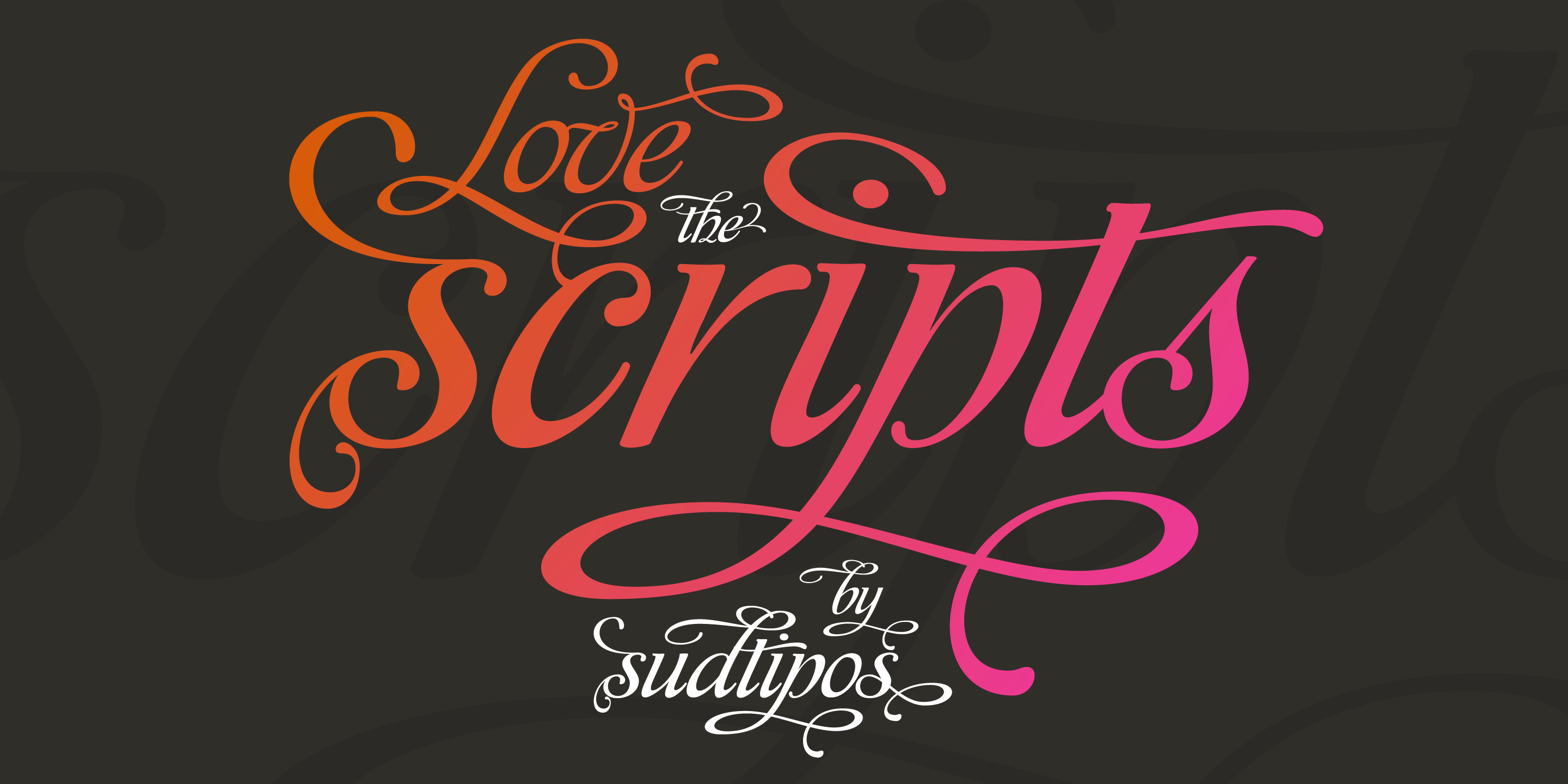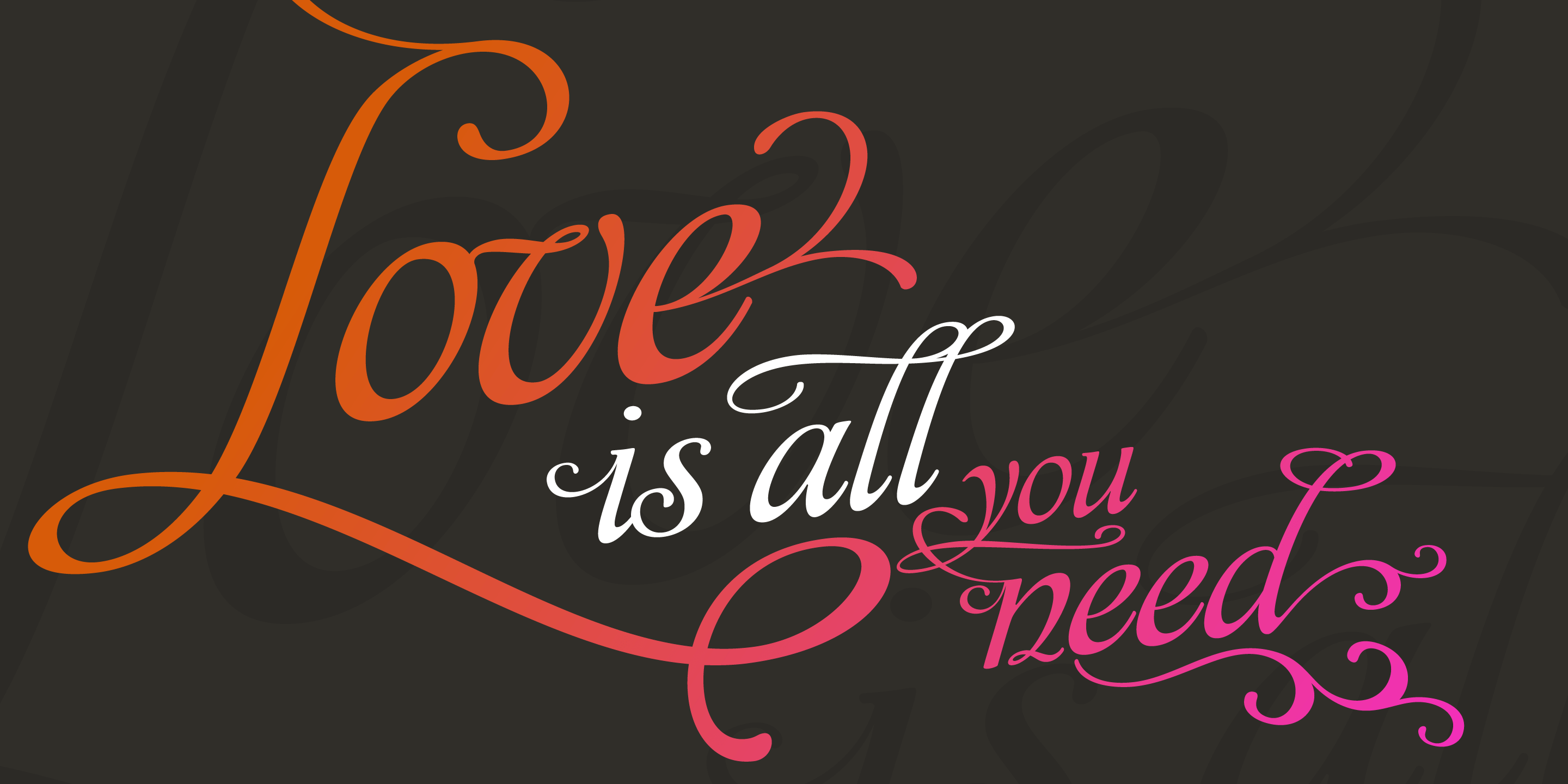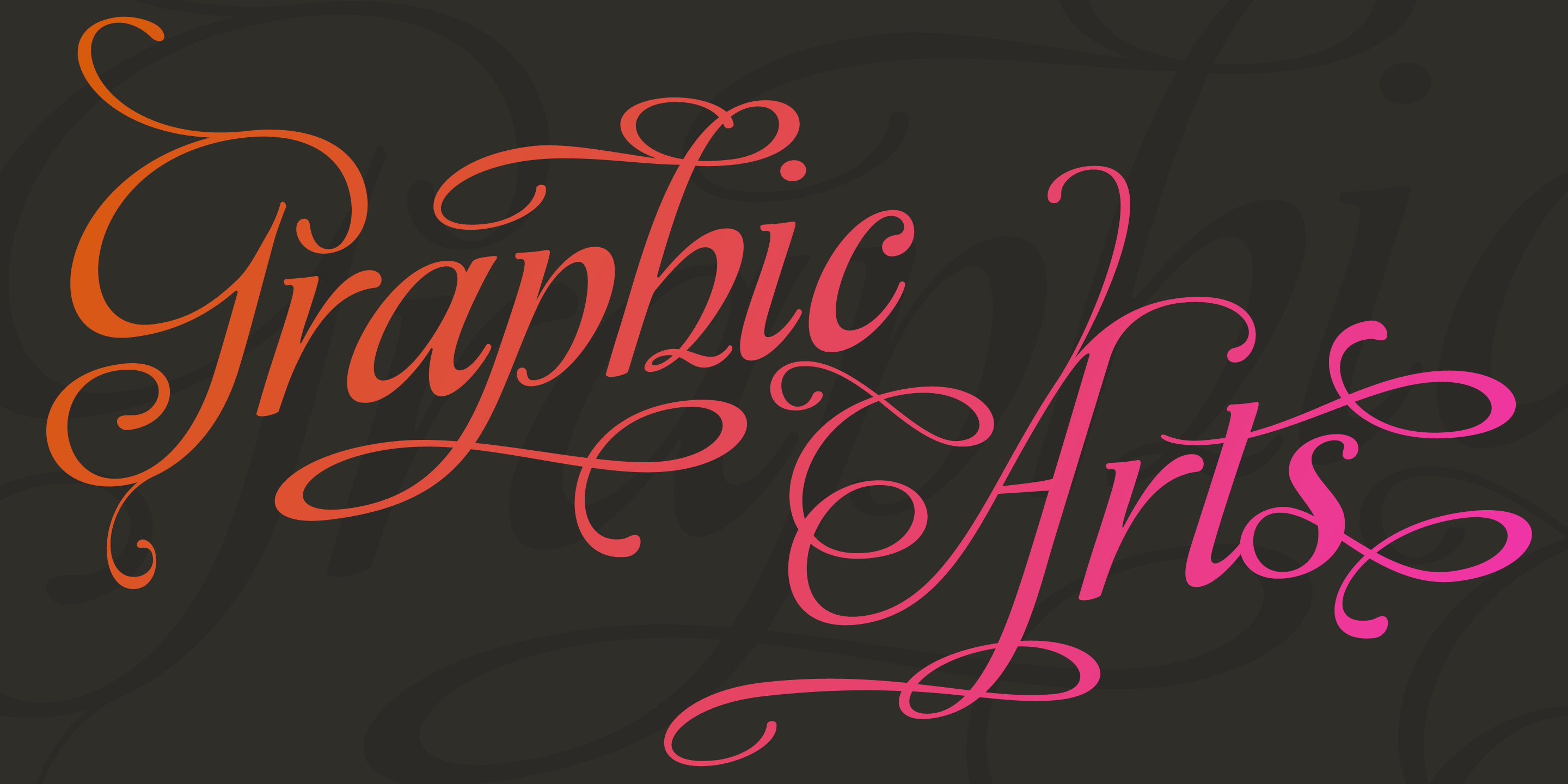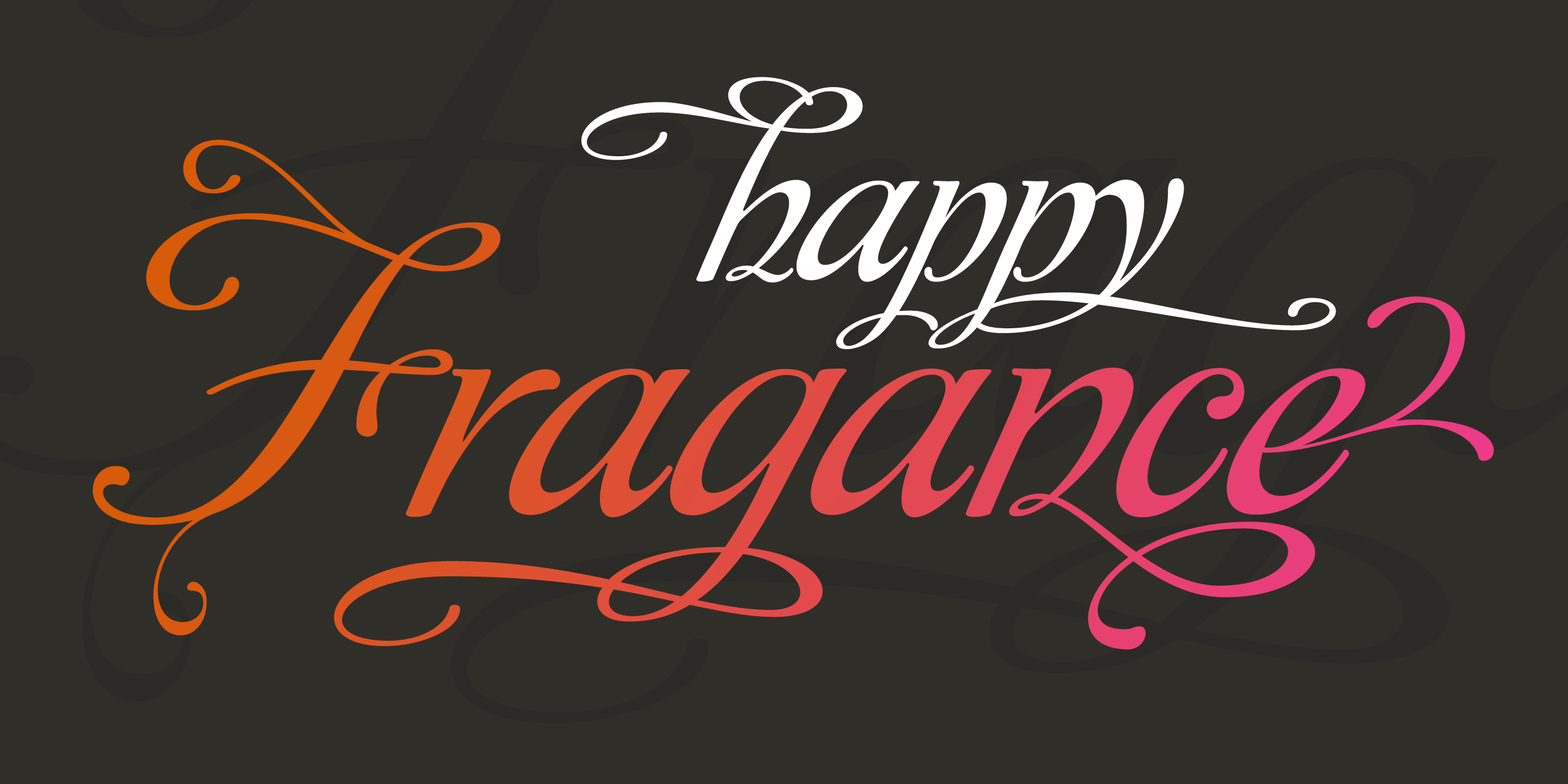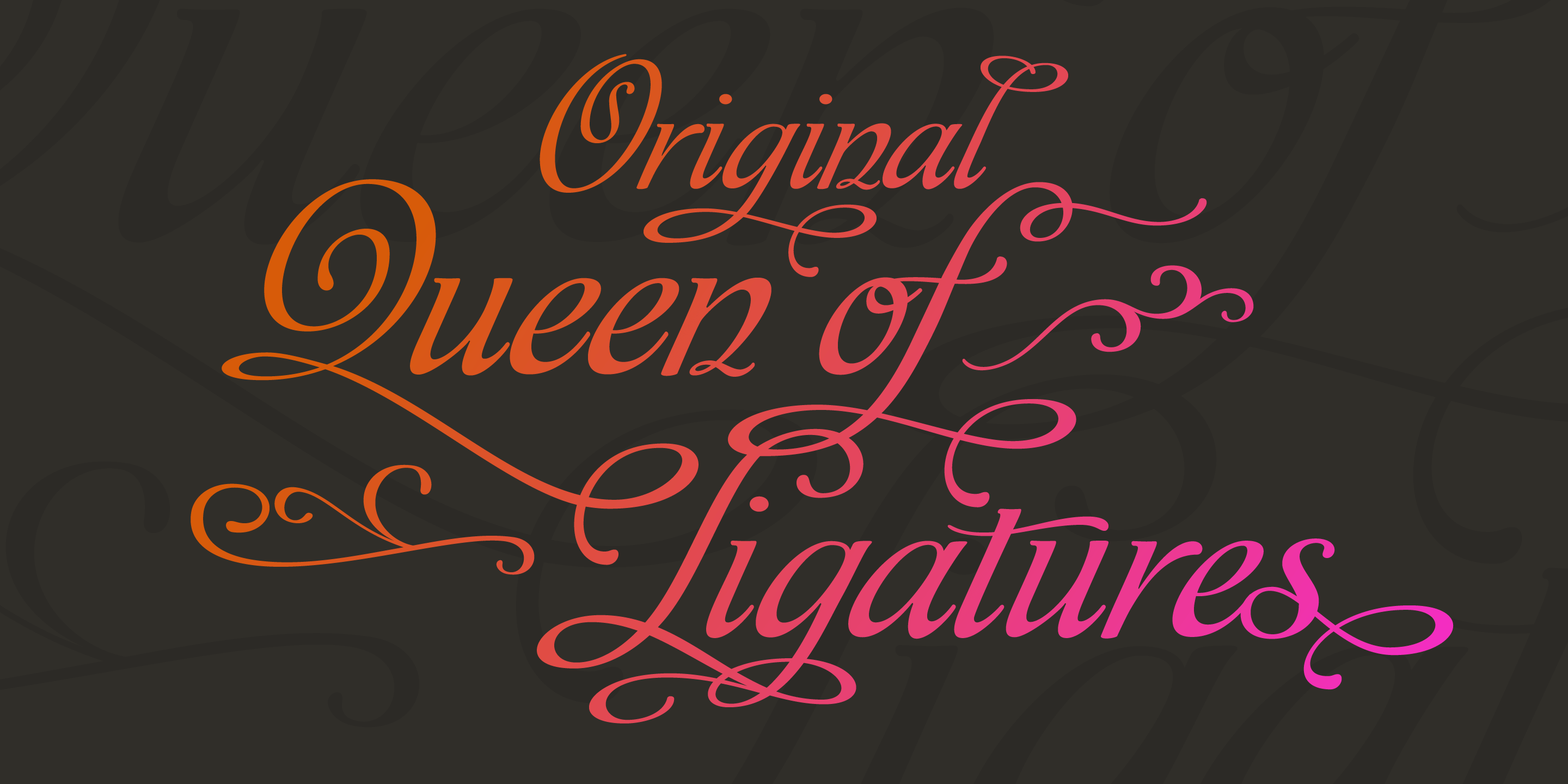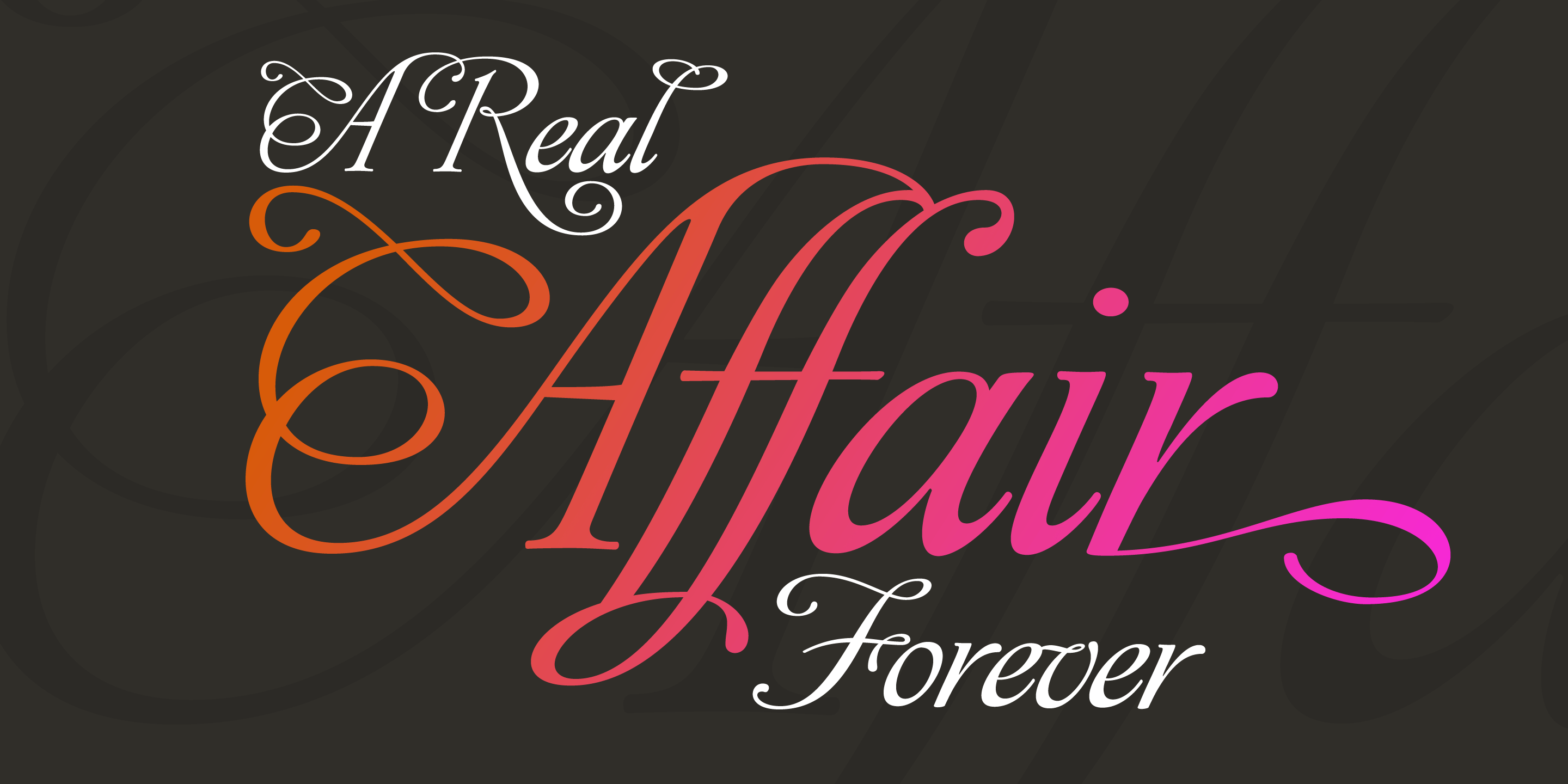
Affair
Font Family by Sudtipos
Buy NowType designers are crazy people. Not crazy in the sense that they think we are Napoleon, but in the sense that the sky can be falling, wars tearing the world apart, disasters splitting the very ground we walk on, plagues circling continents to pick victims randomly, yet we will still perform our ever optimistic task of making some little spot of the world more appealing to the human eye. We ought to be proud of ourselves, I believe. Optimism is hard to come by these days. Regardless of our own personal reasons for doing what we do, the very thing we do is in itself an act of optimism and belief in the inherent beauty that exists within humanity.
As recently as ten years ago, I wouldn't have been able to choose the amazing obscure profession I now have, wouldn't have been able to be humbled by the history that falls into my hands and slides in front of my eyes every day, wouldn't have been able to live and work across previously impenetrable cultural lines as I do now, and wouldn't have been able to raise my glass of Malbeck wine to toast every type designer who was before me, is with me, and will be after me. As recently as ten years ago, I wouldn't have been able to mean these words as I wrote them: It's a small world.
Yes, it is a small world, and a wonderfully complex one too. With so much information drowning our senses by the minute, it has become difficult to find clear meaning in almost anything. Something throughout the day is bound to make us feel even smaller in this small world. Most of us find comfort in a routine. Some of us find extended families. But in the end we are all Eleanor Rigbys, lonely on the inside and waiting for a miracle to come. If a miracle can make the world small, another one can perhaps give us meaning.
And sometimes a miracle happens for a split second, then gets buried until a crazy type designer finds it. I was on my honeymoon in New York City when I first stumbled upon the letters that eventually started this Affair. A simple, content tourist walking down the streets formerly unknown to me except through pop music and film references. Browsing the shops of the city that made Bob Dylan, Lou Reed, and a thousand other artists. Trying to chase away the tourist mentality, wondering what it would be like to actually live in the city of a billion tiny lights.
Tourists don't go to libraries in foreign cities. So I walked into one. Two hours later I wasn't in New York anymore. I wasn't anywhere substantial. I was the crazy type designer at the apex of insanity. La La Land, alphabet heaven, curves and twirls and loops and swashes, ribbons and bows and naked letters. I'm probably not the very first person on this planet to be seduced into starting an Affair while on his honeymoon, but it is something to tease my better half about once in a while.
To this day I can't decide if I actually found the worn book, or if the book itself called for me. Its spine was nothing special, sitting on a shelf, tightly flanked by similar spines on either side. Yet it was the only one I picked off that shelf. And I looked at only one page in it before walking to the photocopier and cheating it with an Argentine coin, since I didn't have the American quarter it wanted.
That was the beginning. I am now writing this after the Affair is over. And it was an Affair to remember, to pull a phrase. Right now, long after I have drawn and digitized and tested this alphabet, and long after I saw what some of this generation's type designers saw in it, I have the luxury to speculate on what Affair really is, what made me begin and finish it, what cultural expressions it has, and so on. But in all honesty it wasn't like that. Much like in my Ministry Script experience, I was a driven man, a lover walking the ledge, an infatuated student following the instructions of his teacher while seeing her as a perfect angel. I am not exaggerating when I say that the letters themselves told me how to extend them. I was exploited by an alphabet, and it felt great.
Unlike my experience with Ministry Script, where the objective was to push the technology to its limits, this Affair felt like the most natural and casual sequence of processions in the world ? my hand following the grid, the grid following what my hand had already done ? a circle of creation contained in one square computer cell, then doing it all over again. By contrast, it was the lousiest feeling in the world when I finally reached the conclusion that the Affair was done. What would I do now? Would any commitment I make from now on constitute a betrayal of these past precious months? I'm largely over all that now, of course. I like to think I'm a better man now because of the experience.
Affair is an enormous, intricately calligraphic OpenType font based on a 9x9 photocopy of a page from a 1950s lettering book. In any calligraphic font, the global parameters for developing the characters are usually quite volatile and hard to pin down, but in this case it was particularly difficult because the photocopy was too gray and the letters were of different sizes, very intertwined and scan-impossible. So finishing the first few characters in order to establish the global rhythm was quite a long process, after which the work became a unique soothing, numbing routine by which I will always remember this Affair. The result of all the work, at least to the eyes of this crazy designer, is 1950s American lettering with a very Argentine wrapper. My Affair is infused with the spirit of filete, dulce de leche, yerba mate, and Carlos Gardel.
Upon finishing the font I was fortunate enough that a few of my colleagues, great type designers and probably much saner than I am, agreed to show me how they envision my Affair in action. The beauty they showed me makes me feel small and yearn for the world to be even smaller now ? at least small enough so that my international colleagues and I can meet and exchange stories over a good parrilla. These people, whose kindness is very deserving of my gratitude, and whose beautiful art is very deserving of your appreciation, are in no particular order: Corey Holms, Mariano Lopez Hiriart, Xavier Dupr